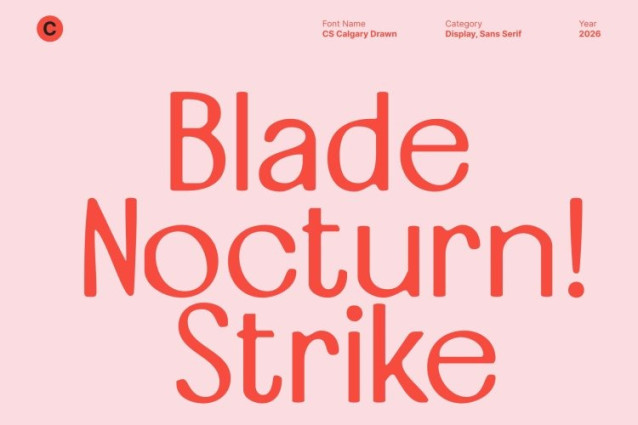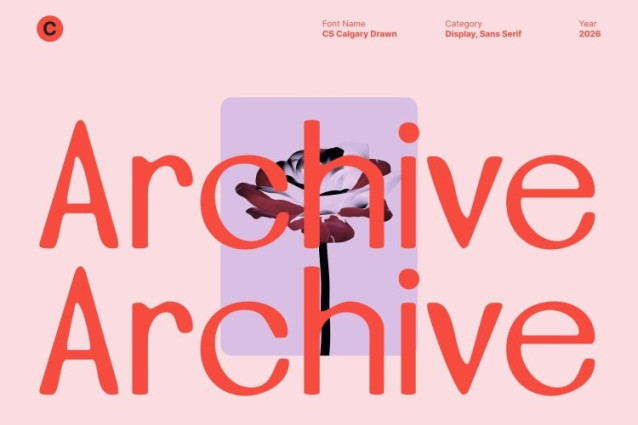
CS Calgary Drawn Font
CS Calgary Drawn Font This is a clean, modern sans serif font designed to refined simplicity. Built on a minimalist foundation and enhanced with a subtle drawn finish, this typeface delivers a polished yet human appearance that feels timeless and confident. The hand-drawn texture softens its precision, creating a sophisticated visual tone that feels modern, artistic, and quietly luxurious.
Minimalist Structure with Soft Drawn Character
The strength of this font lies in its restrained design paired with gentle handcrafted detail. Clean lines, consistent stroke weight, and generous spacing create a calm and uncluttered presence, while the drawn effect introduces slight irregularities that add warmth and individuality.
Modern Clarity with Artistic Refinement
Designed for clarity and professionalism, this font performs beautifully across both digital and print applications. Its modern sans serif structure ensures excellent legibility, while the drawn texture adds a refined artistic layer that prevents the design from feeling cold or overly corporate. The result is a typeface that communicates trust, quality, and modern sophistication with a creative edge.
Perfect for Luxury Branding and Minimalist Design
This font is ideal for branding, modern logos, premium packaging, editorial layouts, and clean professional websites. Its elegant simplicity combined with a hand-drawn touch makes it especially suitable for fashion, beauty, lifestyle, and contemporary brands seeking a minimalist look with personality and warmth.